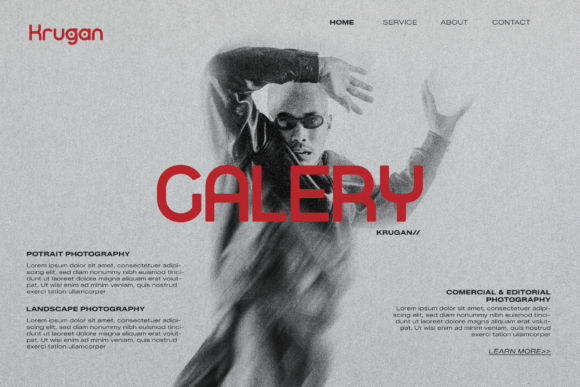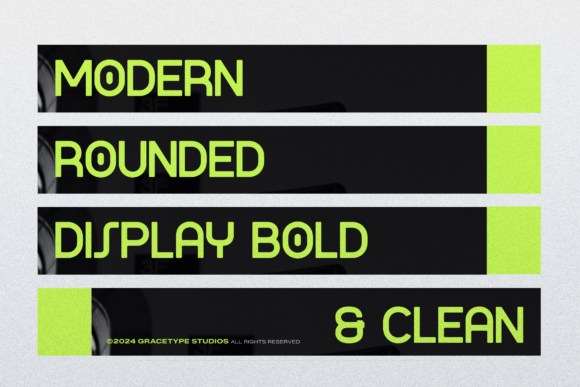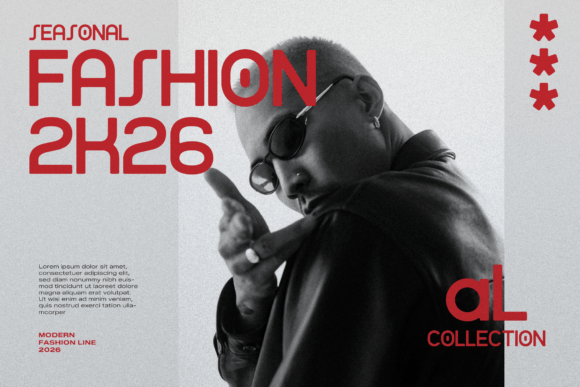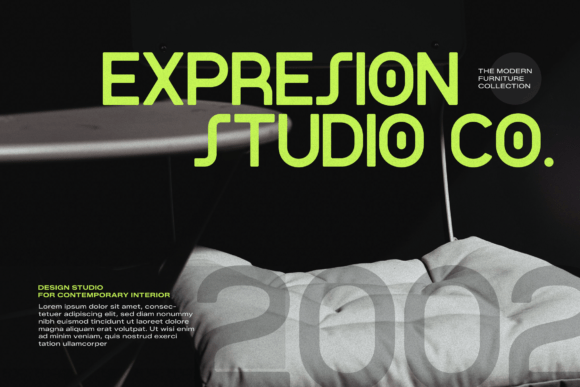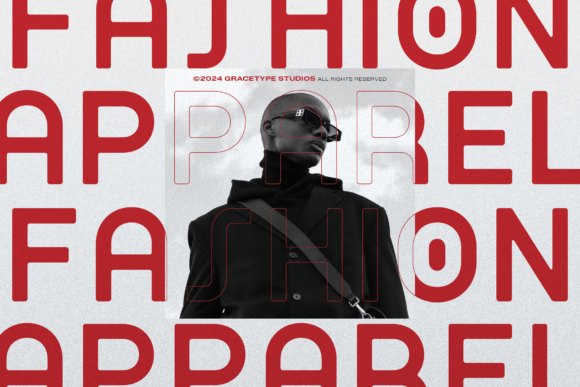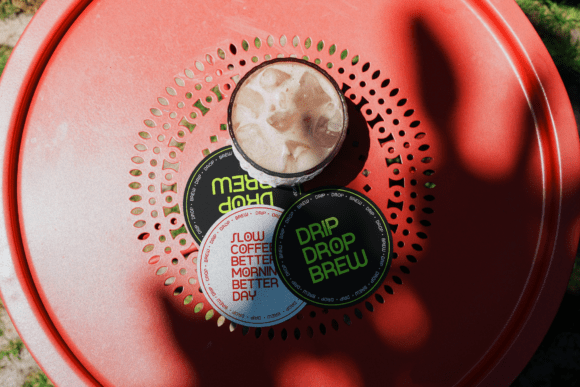
Introduction to Masign Font
Command attention with Masign, a futuristic display sans serif.
This typeface is a masterclass in rounded geometry and minimal expression, featuring ultra-smooth, clean curves that project a high-tech, architectural aesthetic The unique “dot” counters in characters like ‘a’ and ‘g’ add a rhythmic, eye-like detail that makes headlines pop with personality.